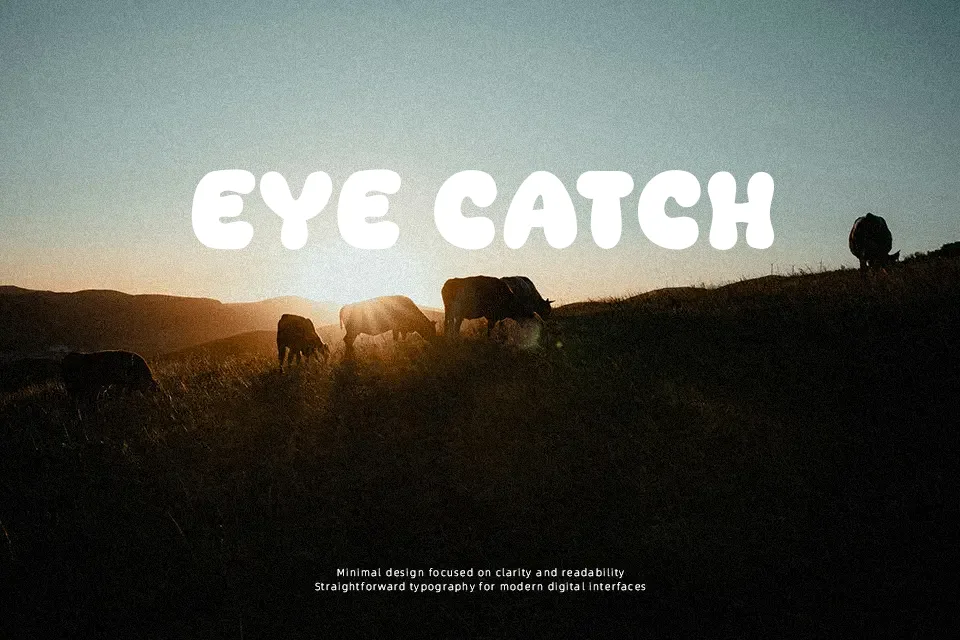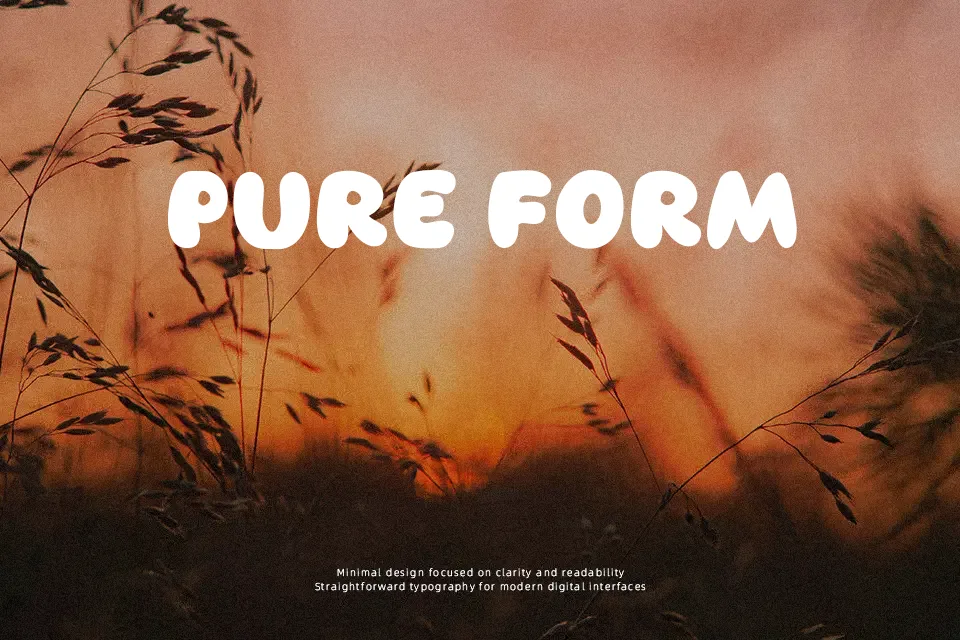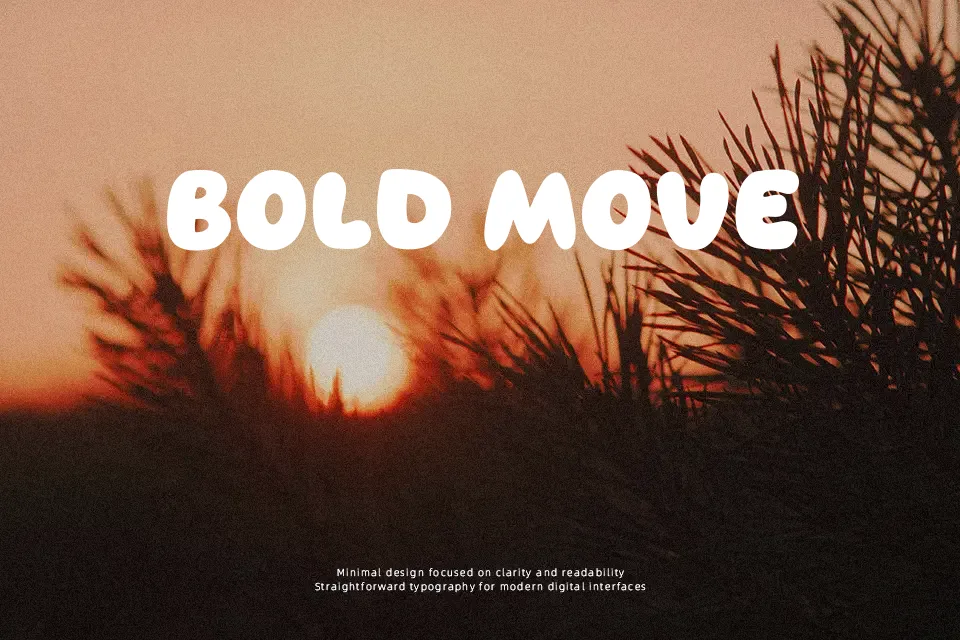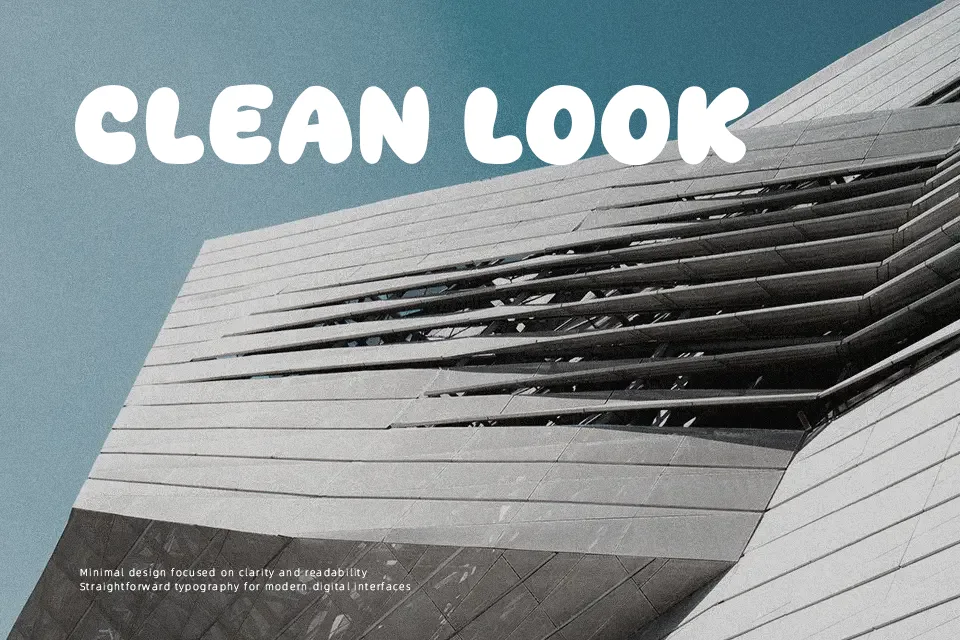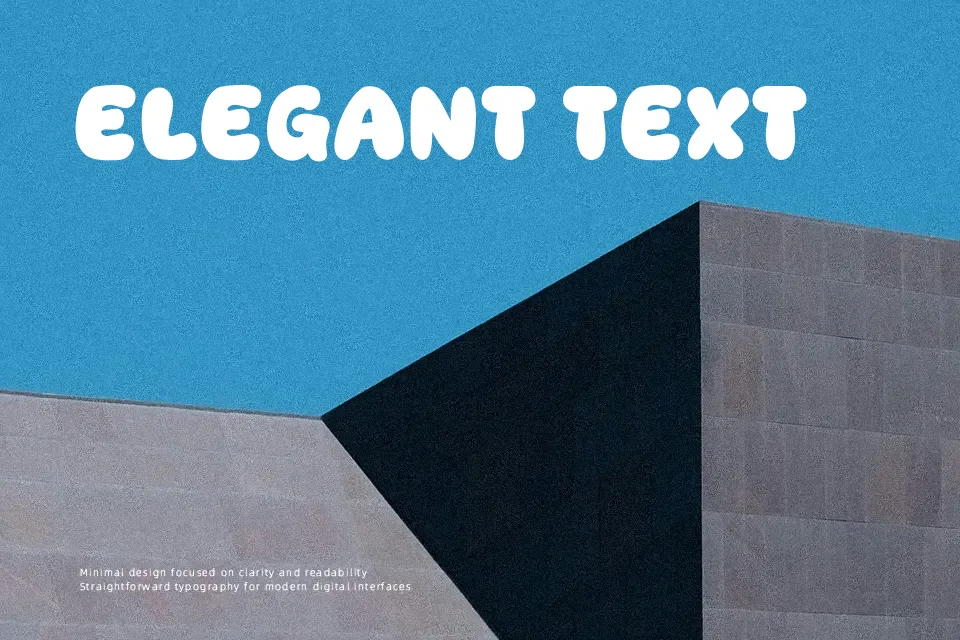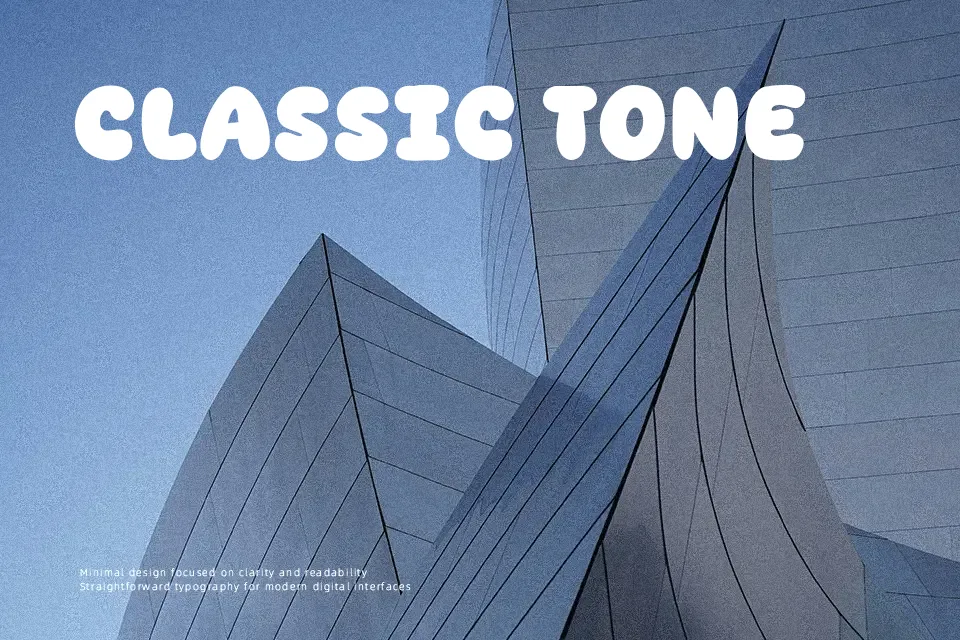
Sunday Burger Font
Designed by Khurasan
Sunday Burger Font features an extra-bold cartoon aesthetic characterized by soft contours, hefty stroke weights, and bouncy baseline rhythms. Each character displays generous optical widths paired with tight, consistent character spacing that maximizes visual impact on the page. The simplified counter spaces and rounded terminals maintain strong clarity across large display banners, playful merchandise, and restaurant branding assets. However, the sheer density of the letterforms makes the design unsuitable for extended body copy or compact editorial paragraphs, where closed counters quickly diminish reading comfort. When reserved for punchy display headers, the typeface provides distinctive warmth and effortless legibility.
Best For: snack packaging,children’s book covers,casual restaurant signage,playful event posters
Not Ideal For: continuous body text,mobile interface body copy,legal documentation,dense technical manuals